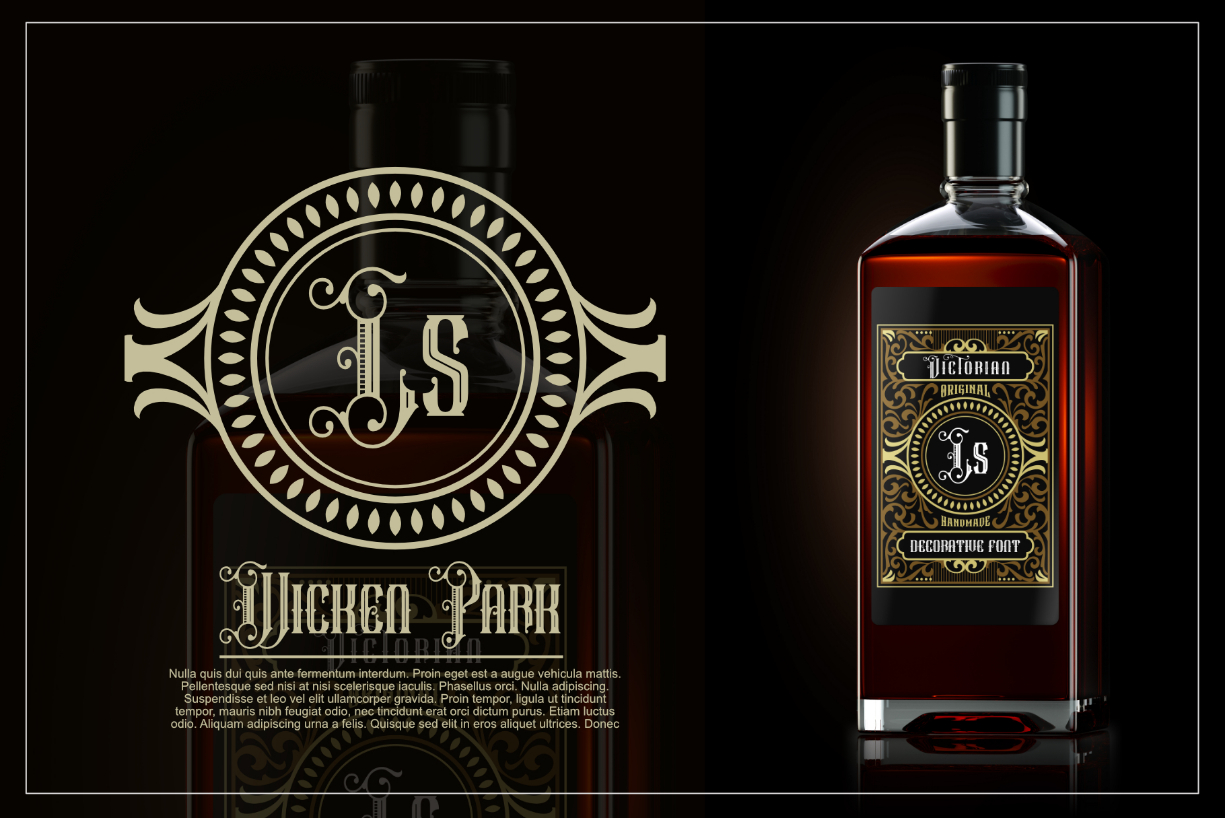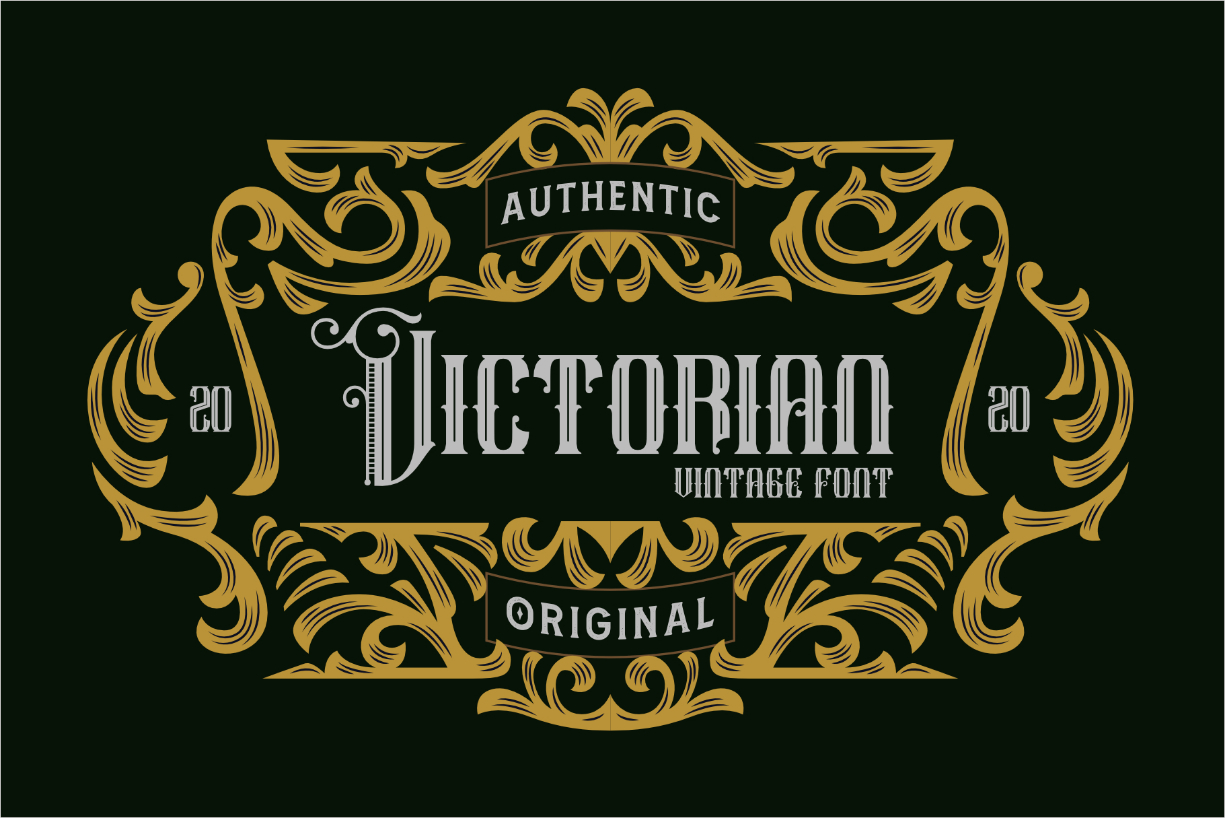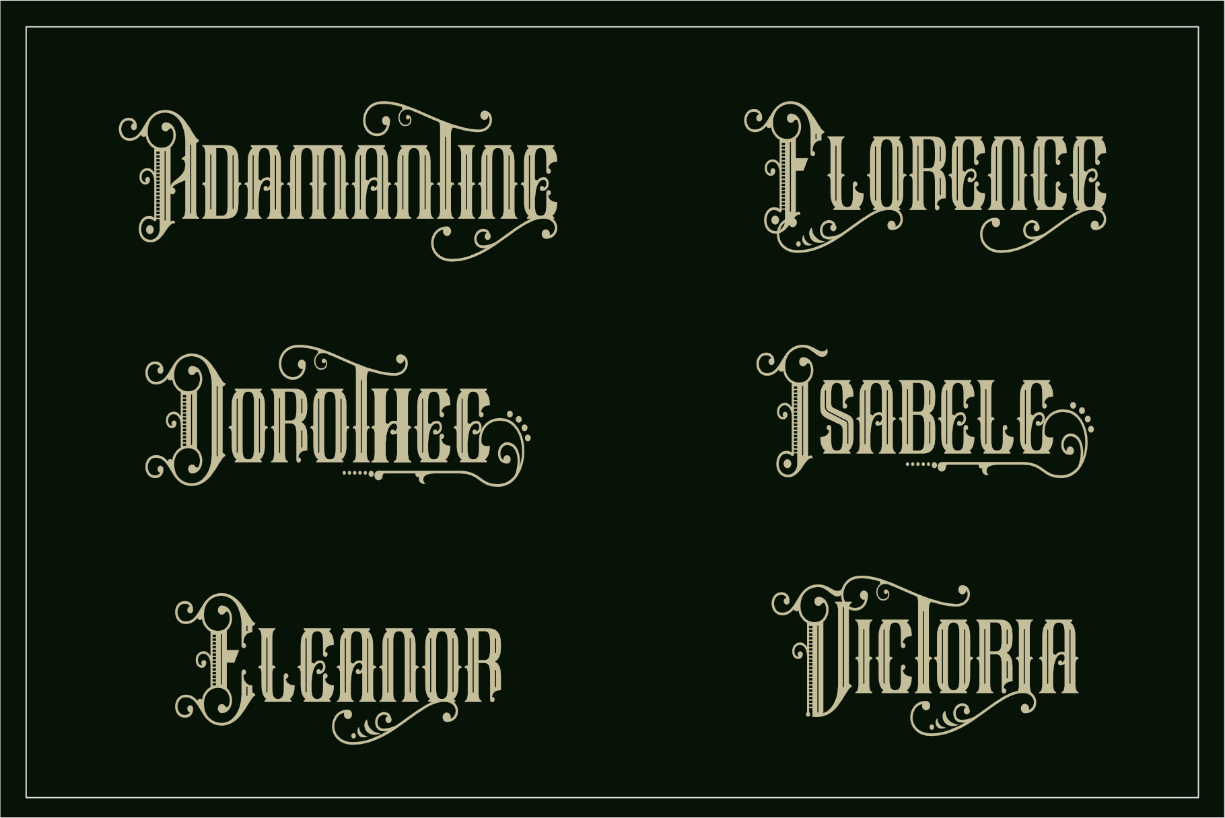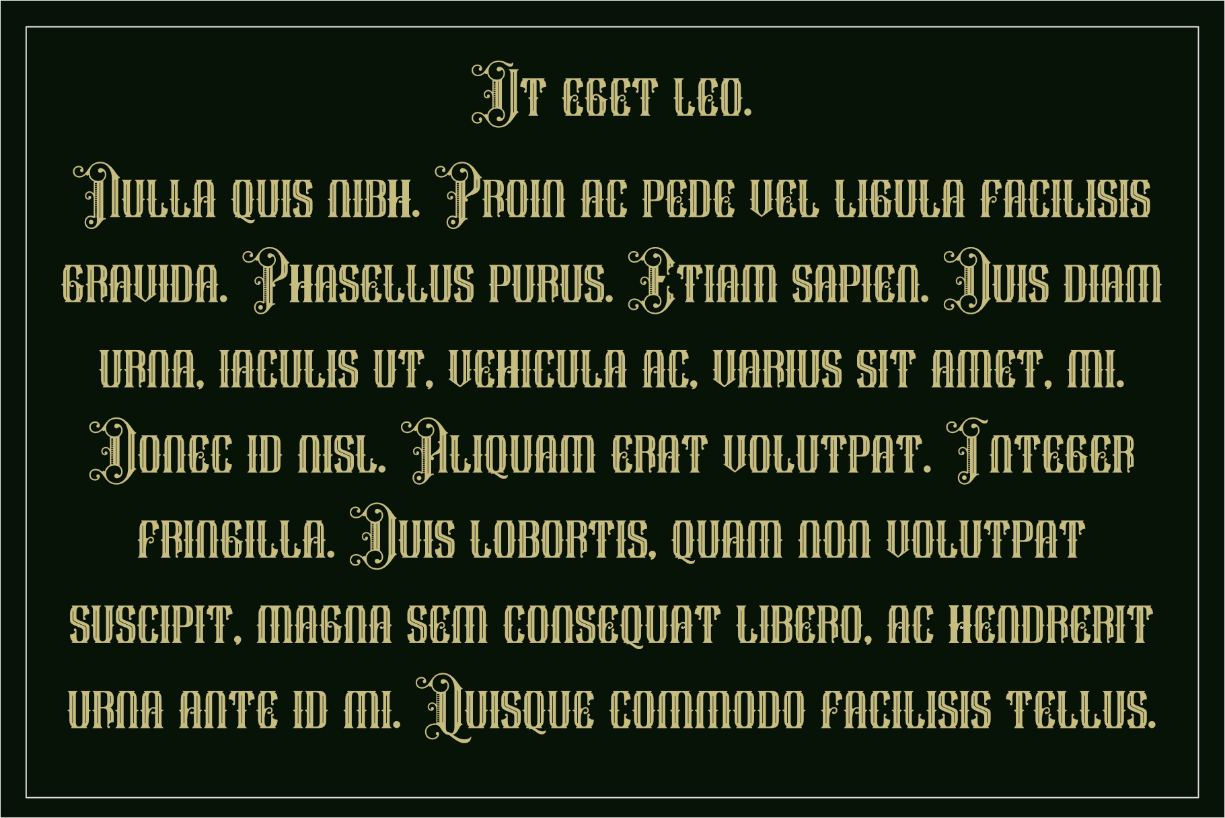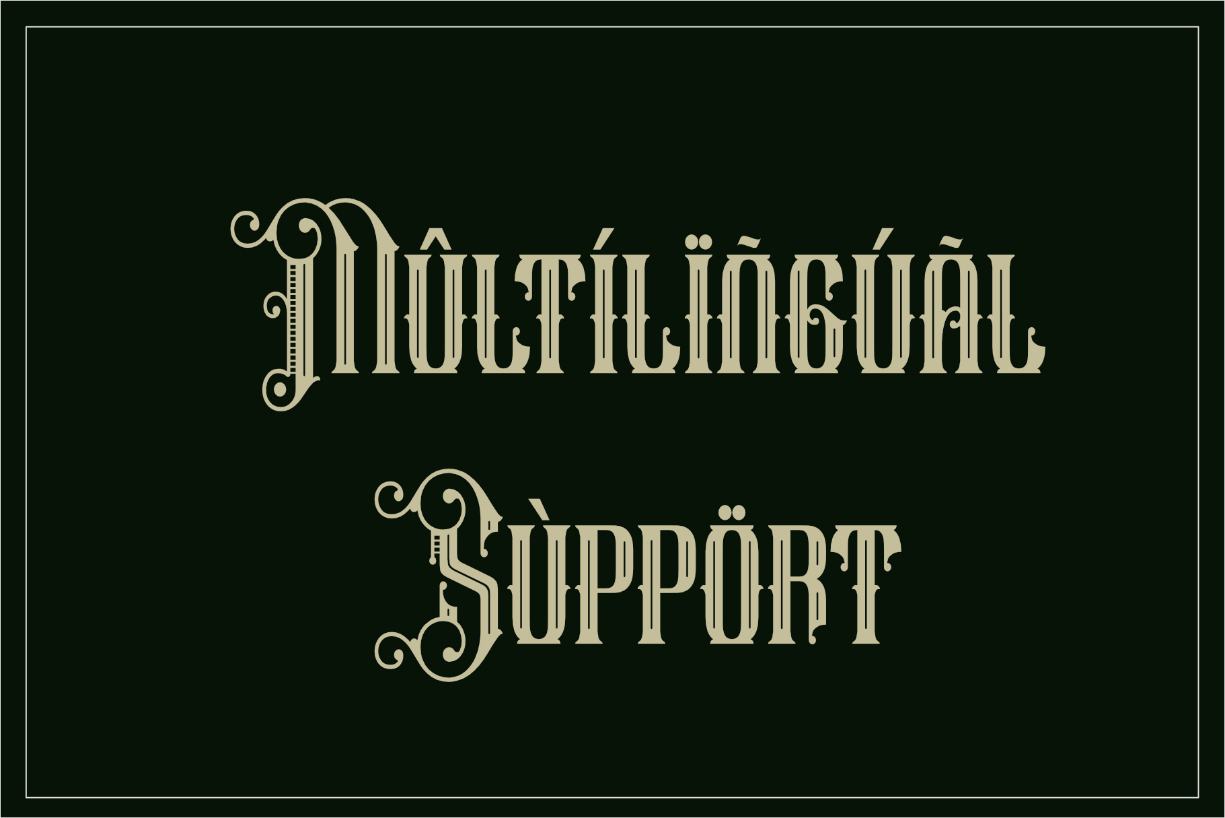
Wicken Park Font
About Wicken Park Font
Wicken Park is a classic blackletter font. This font is very good looking in logo, labels, t-shirt prints, product packaging, invitations, advertising and others.